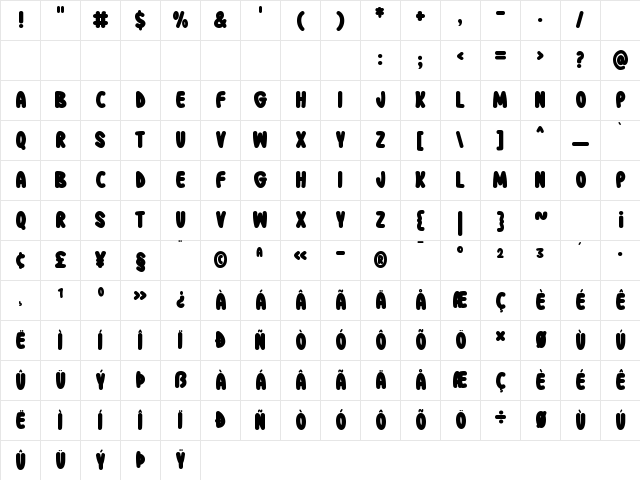
Stickup Regular
Design Context for Stickup
Stickup is a composed and adaptable typeface that performs quietly and consistently across a wide range of design contexts.